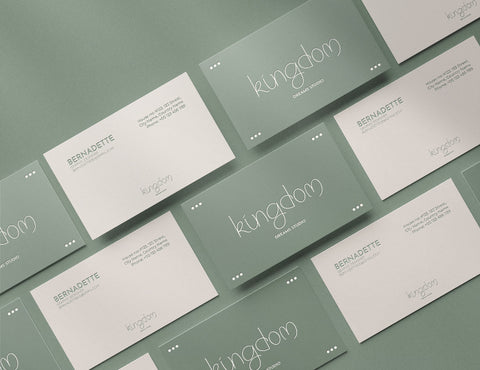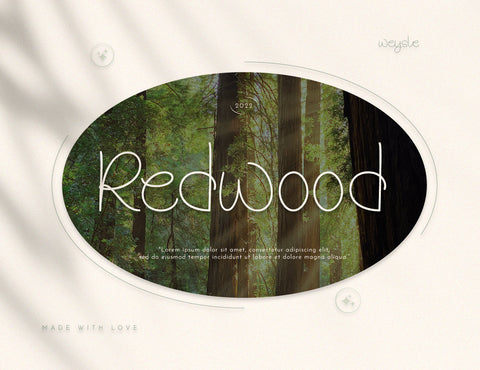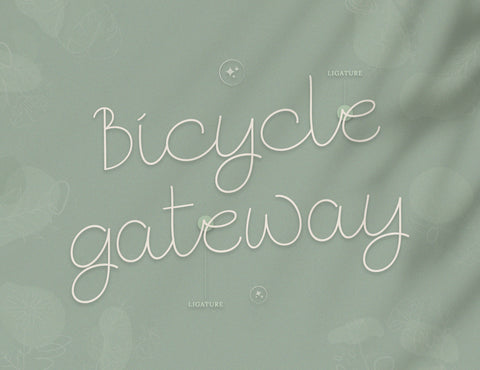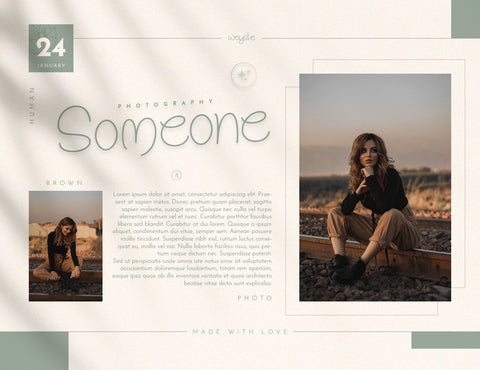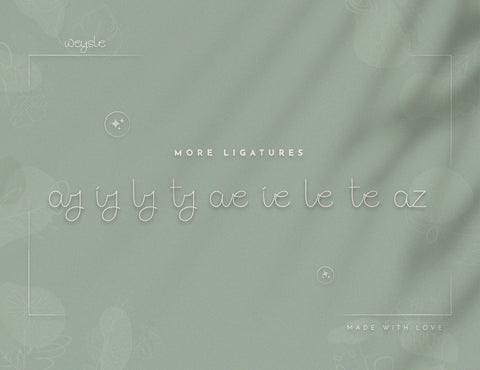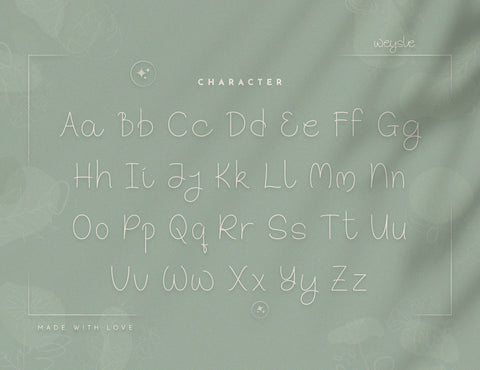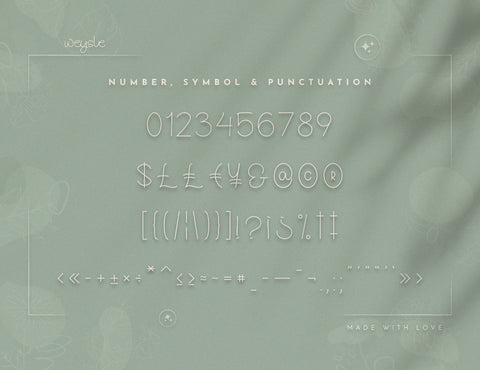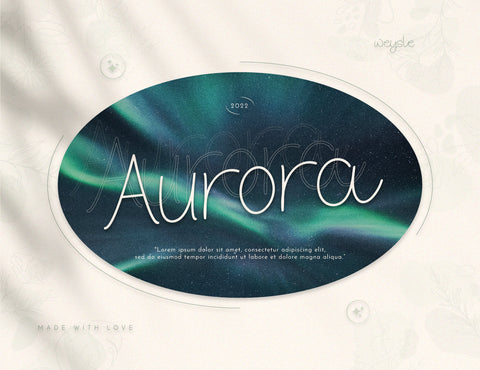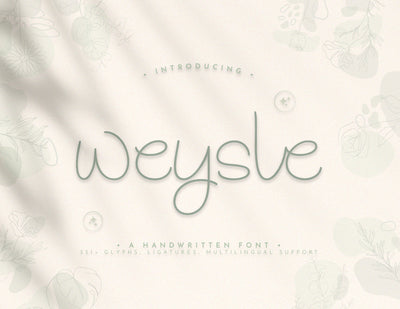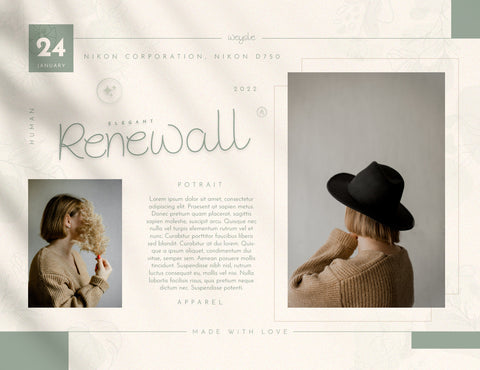
Weysle Handwritten Script Font
Introducing new Script Font arrival, made in 2022, Weysle is the one of our fresh font design. Flowy, thin, and curly— "Weysle" is bringing us feminine, flowery, and bright vibes. It is appropriate use for florist, cards, lettering, logos, branding, and another project that need feminine and semi-script taste. "Weysle" is providing with 351+ glyphs, ligature, and multilingual support. "Weysle" is perfect for make your design more stylish and artistic.